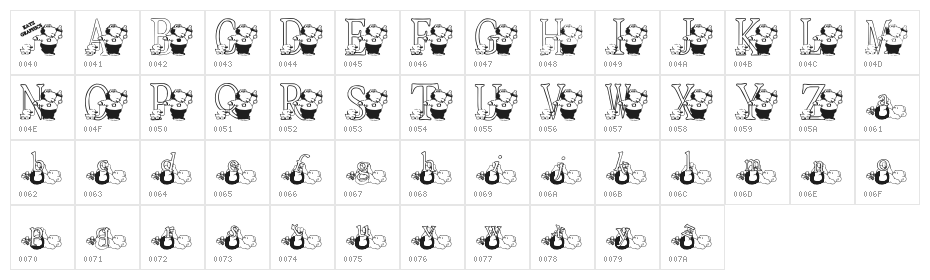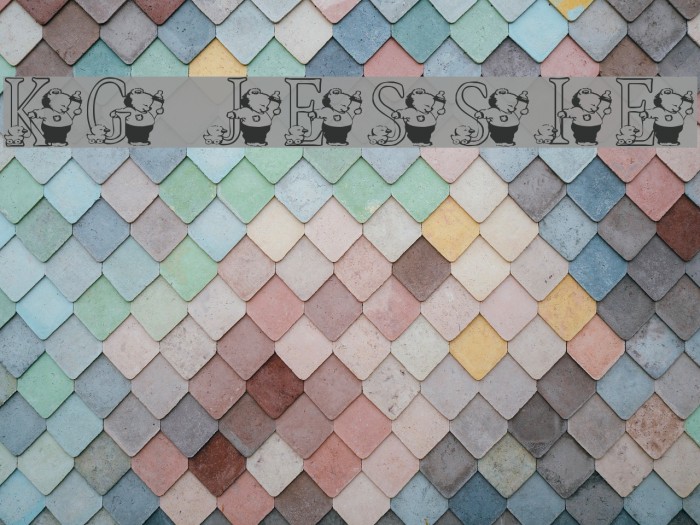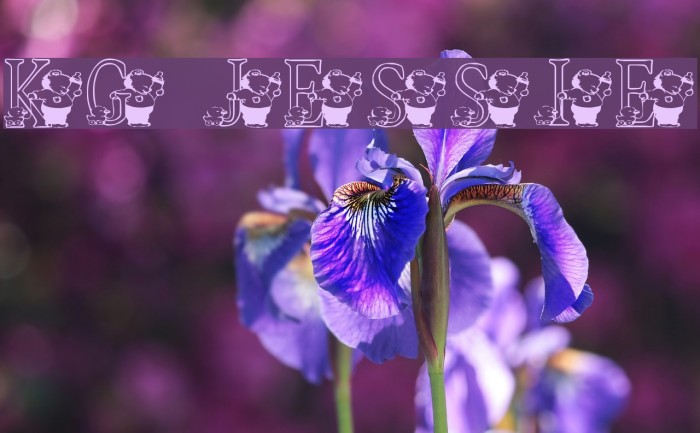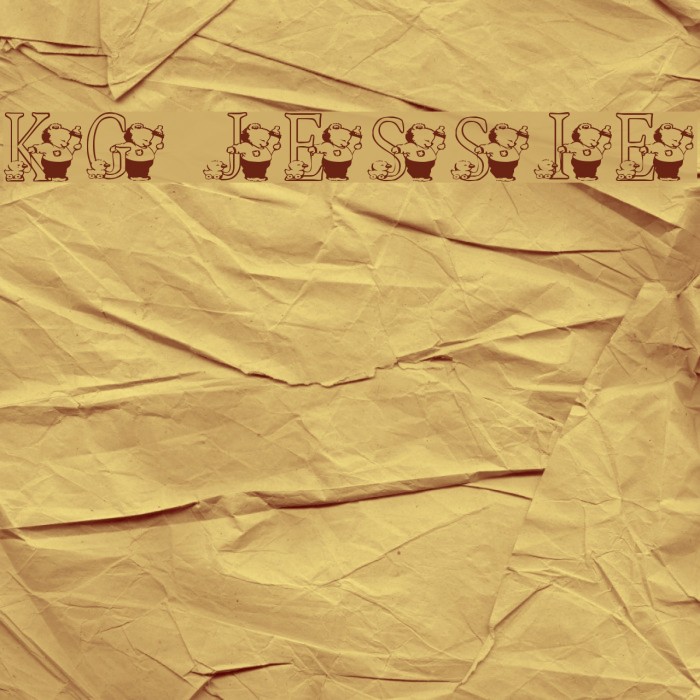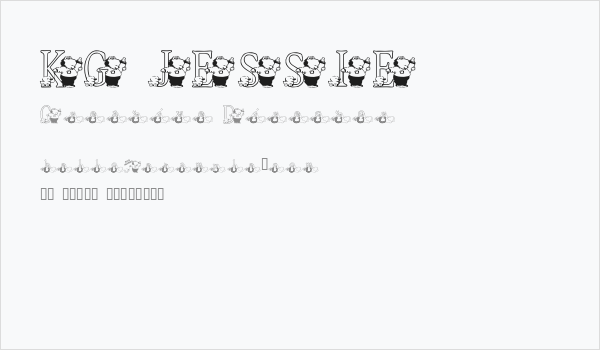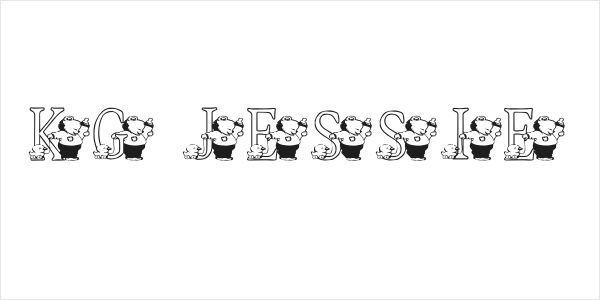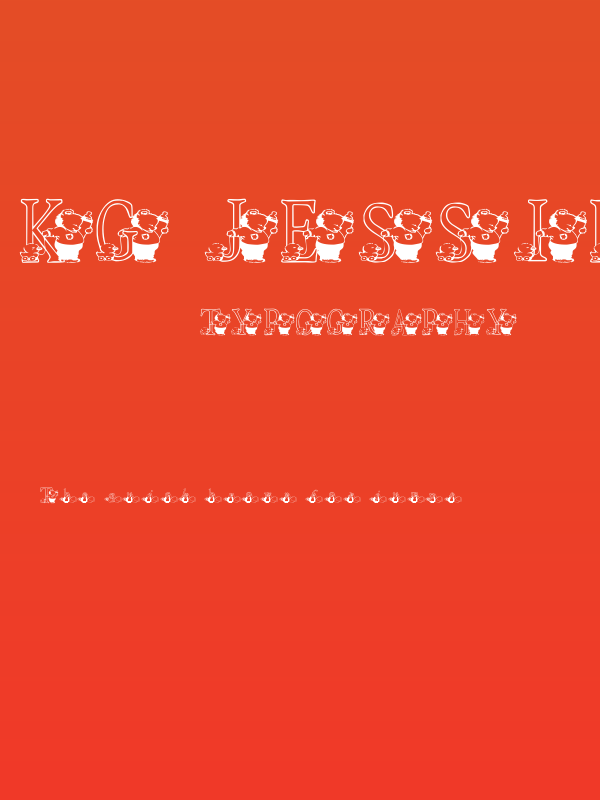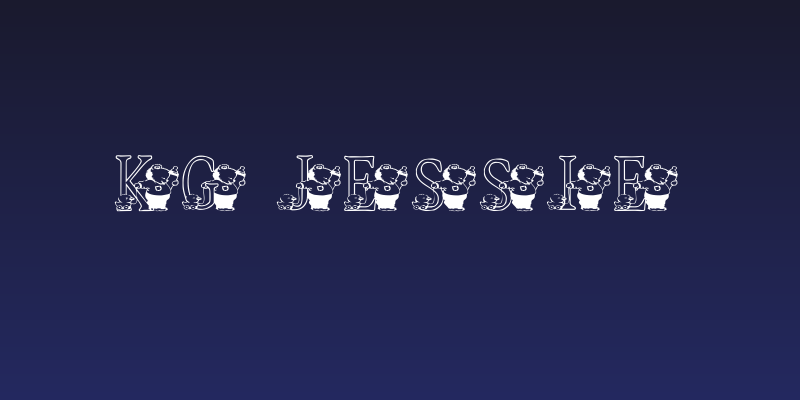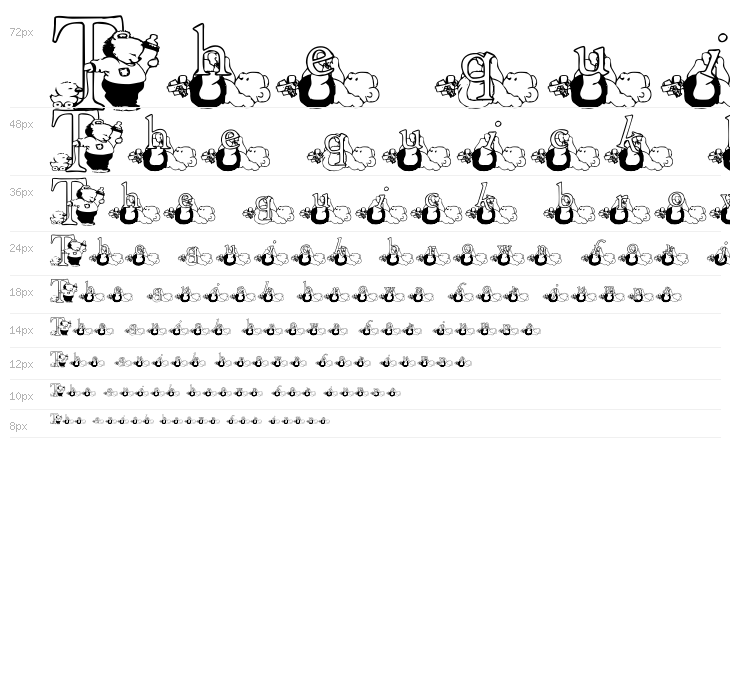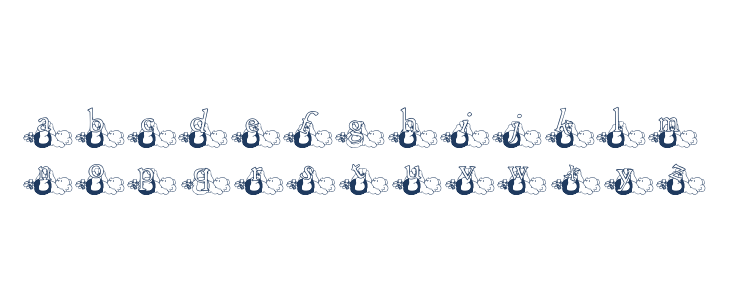
KG JESSIE Font
KG JESSIE Description
This playful and whimsical font features each letter adorned with a charming character, creating a delightful and engaging visual experience. The characters are integrated into the design of the letters, adding a unique and fun element to the typography. The font maintains a consistent style across both uppercase and lowercase letters, as well as numbers and special characters. Its decorative nature makes it ideal for projects that require a touch of creativity and imagination. The font's intricate design is perfect for children's books, playful invitations, or any project that aims to convey a sense of joy and whimsy.
Proposed ProjectsChildren's books, playful invitations, creative posters, educational materials.